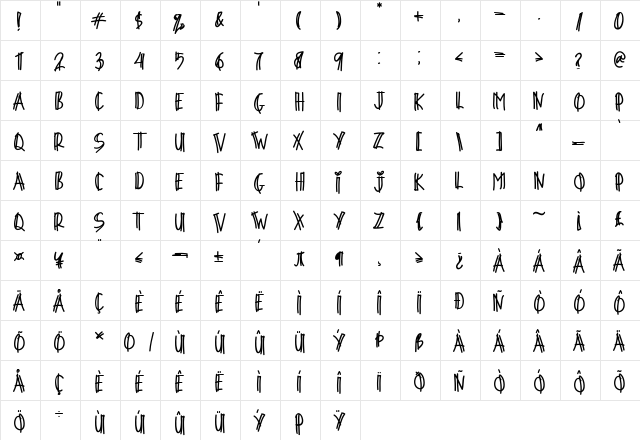
Love Beti Regular
| Foundry | Atjcloth |
| Designer | Hanif Syahputra |
Design Context for Love Beti Typeface
Love Beti is a composed and adaptable typeface that performs quietly and consistently across a wide range of design contexts.